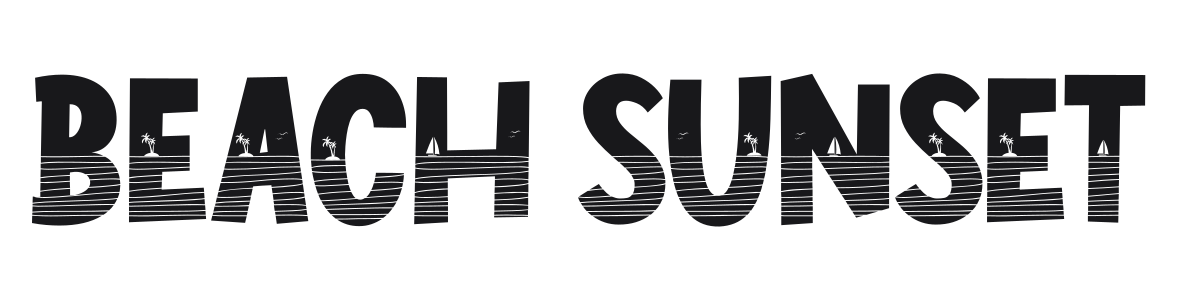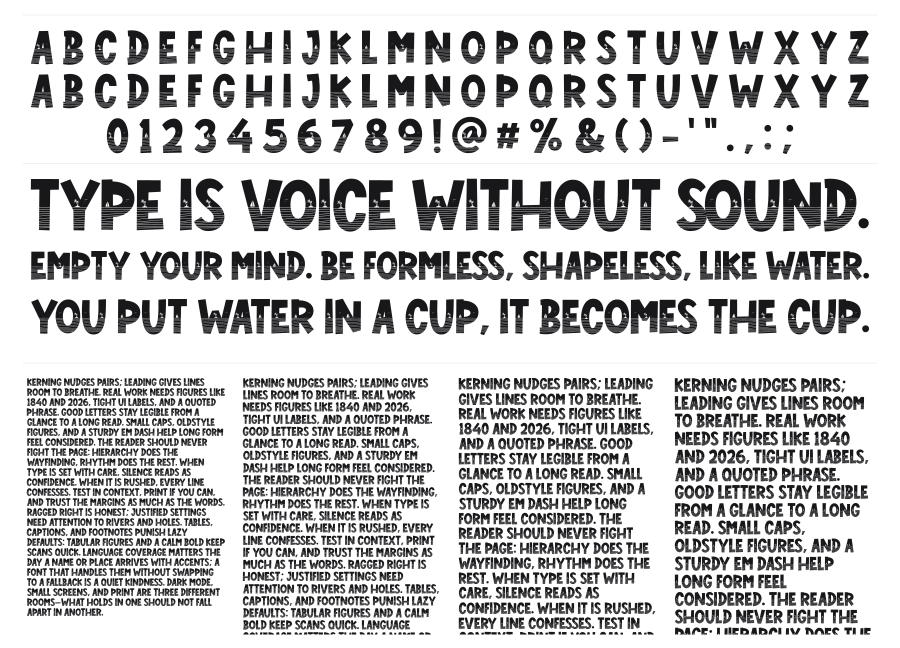
Beach Sunset
Beach Sunset is a bold novelty display font where every character is filled with horizontal stripe textures and tiny coastal silhouettes like sailboats and palm trees. The chunky, wide construction gives it strong headline presence, while the illustrated fill turns each word into a miniature beach scene. It works best large, where the internal details read clearly.